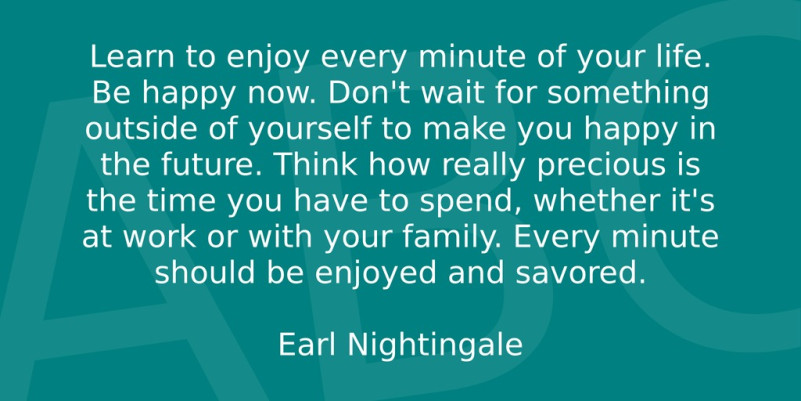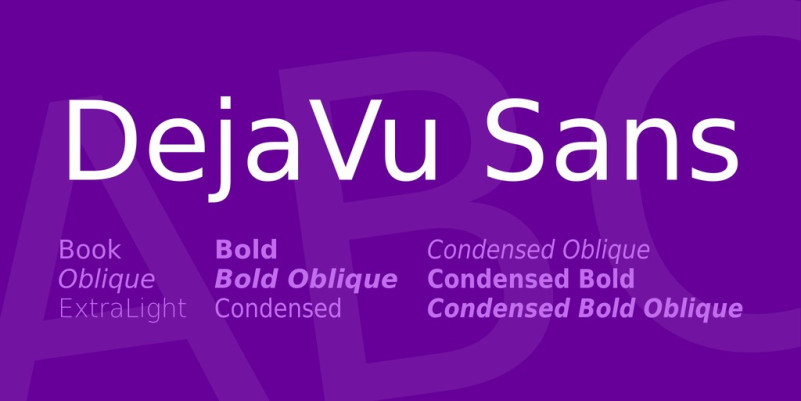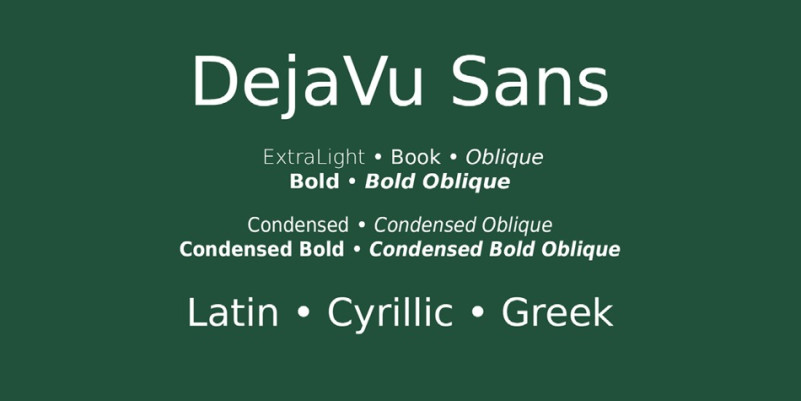
DejaVu Sans Font
The DejaVu fonts are a font family based on the Bitstream Vera Fonts (http://gnome.org/fonts/). Its purpose is to provide a wider range of characters (see status.txt for more information) while maintaining the original look and feel.
DejaVu fonts are based on Bitstream Vera fonts version 1.10.